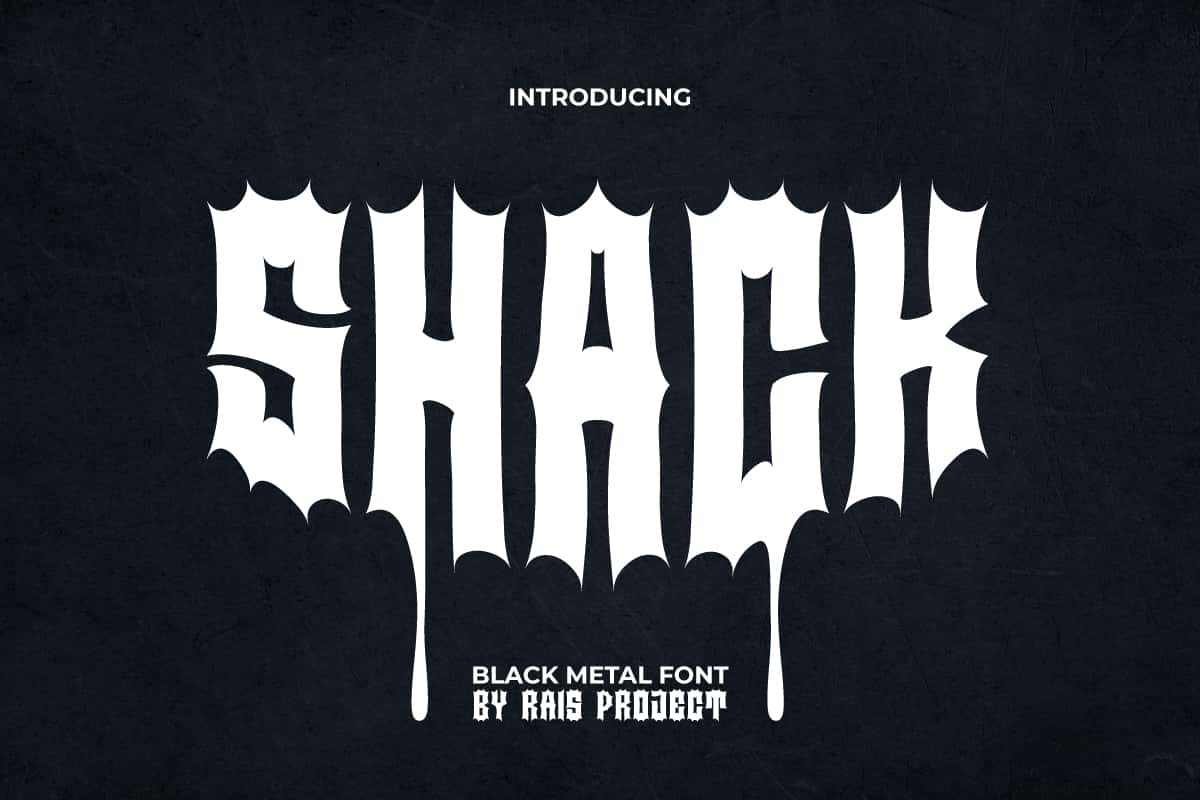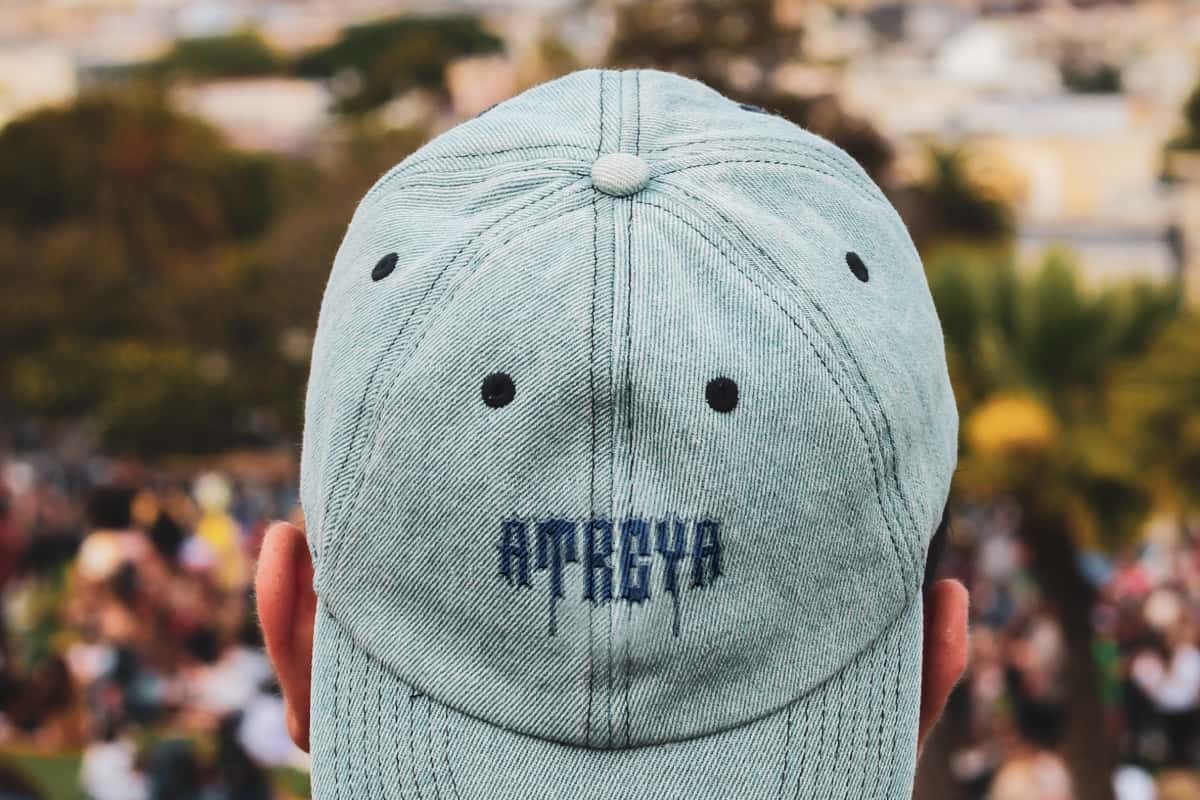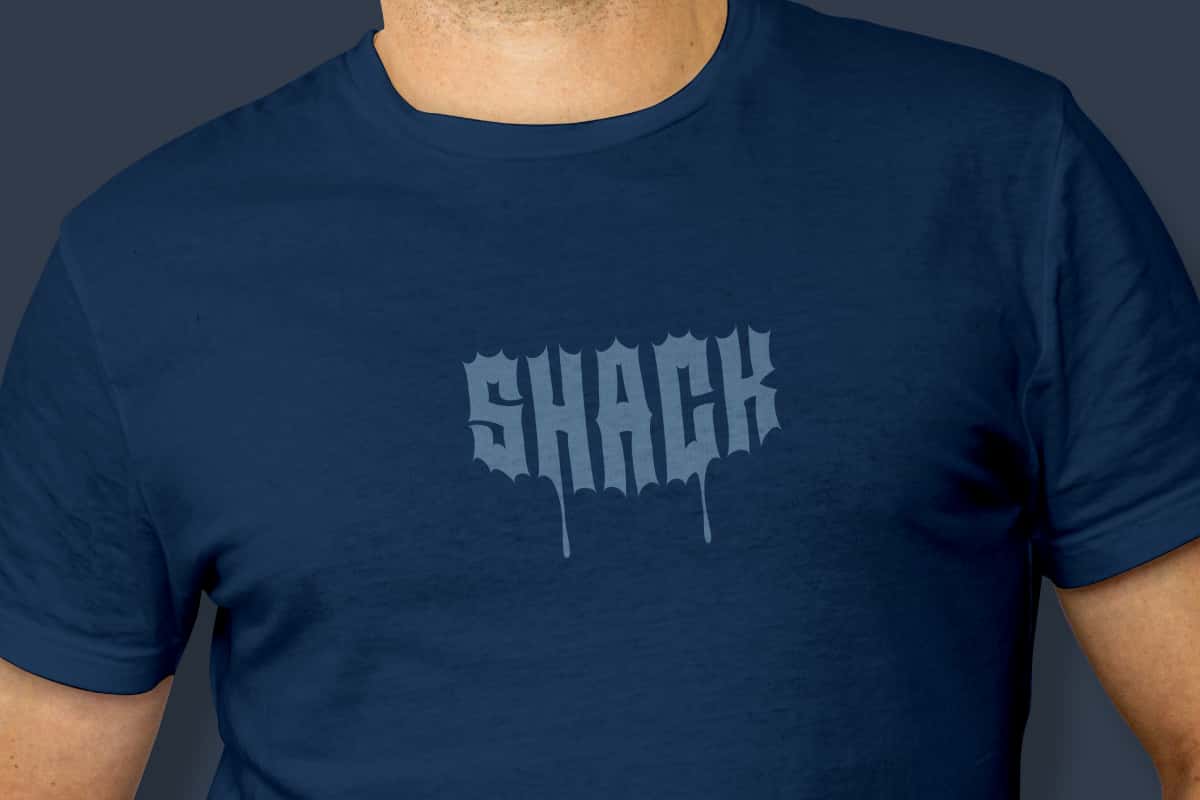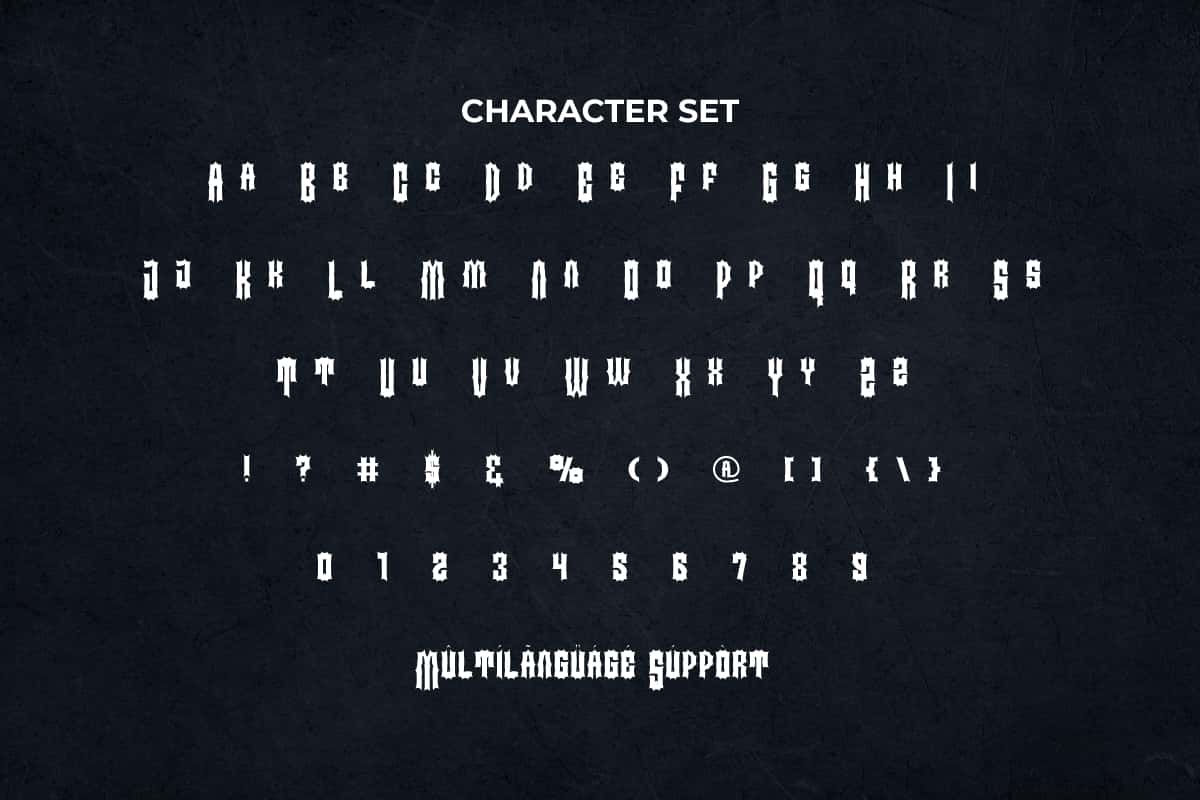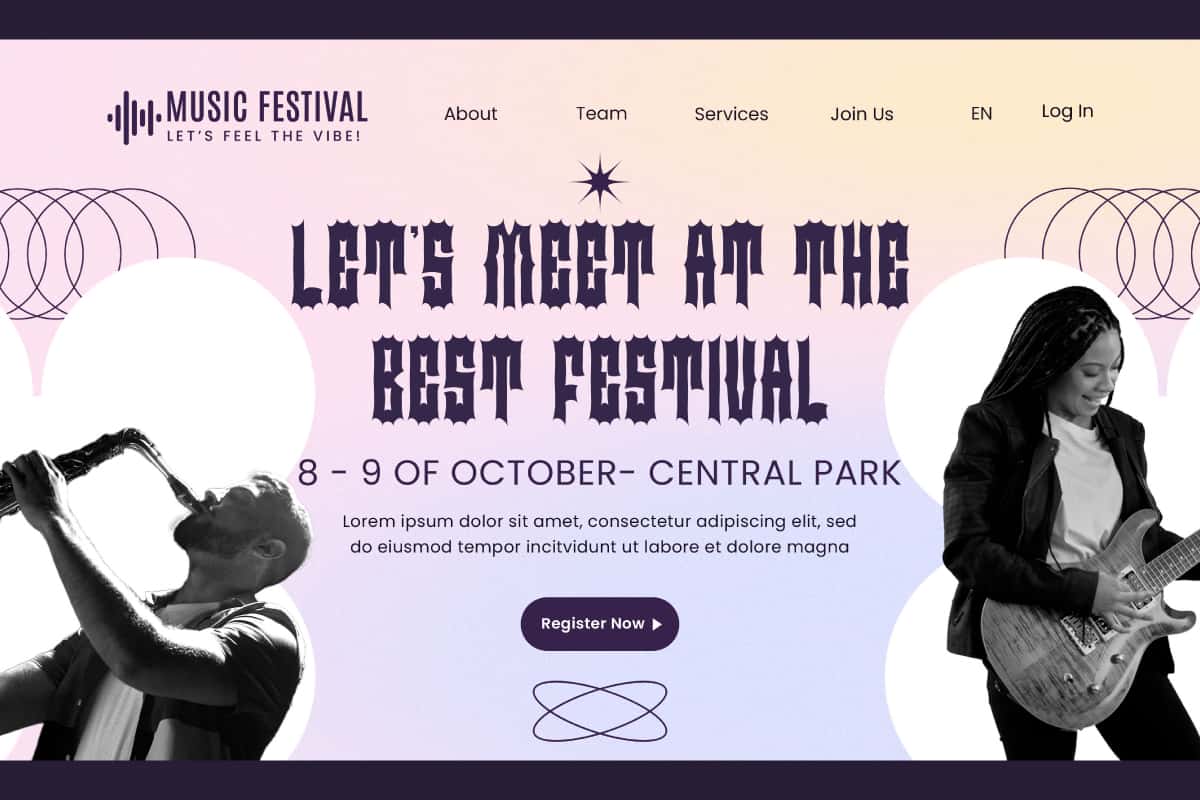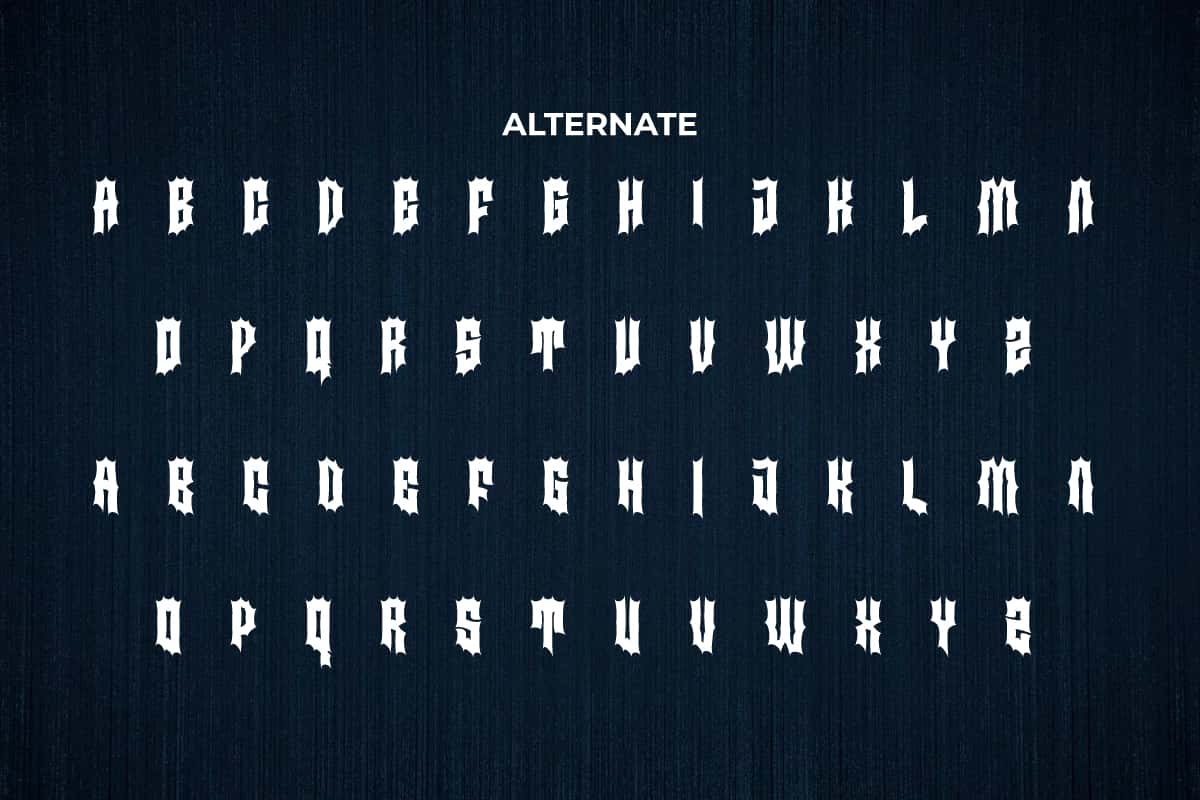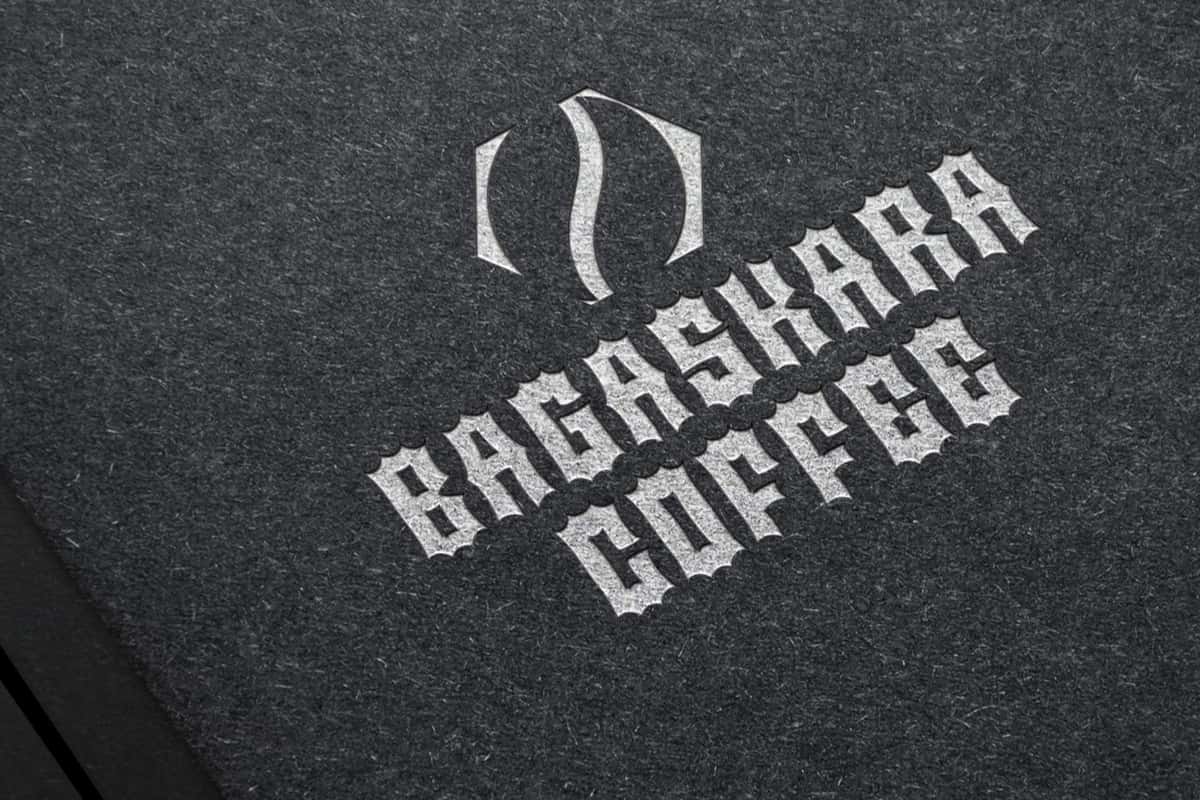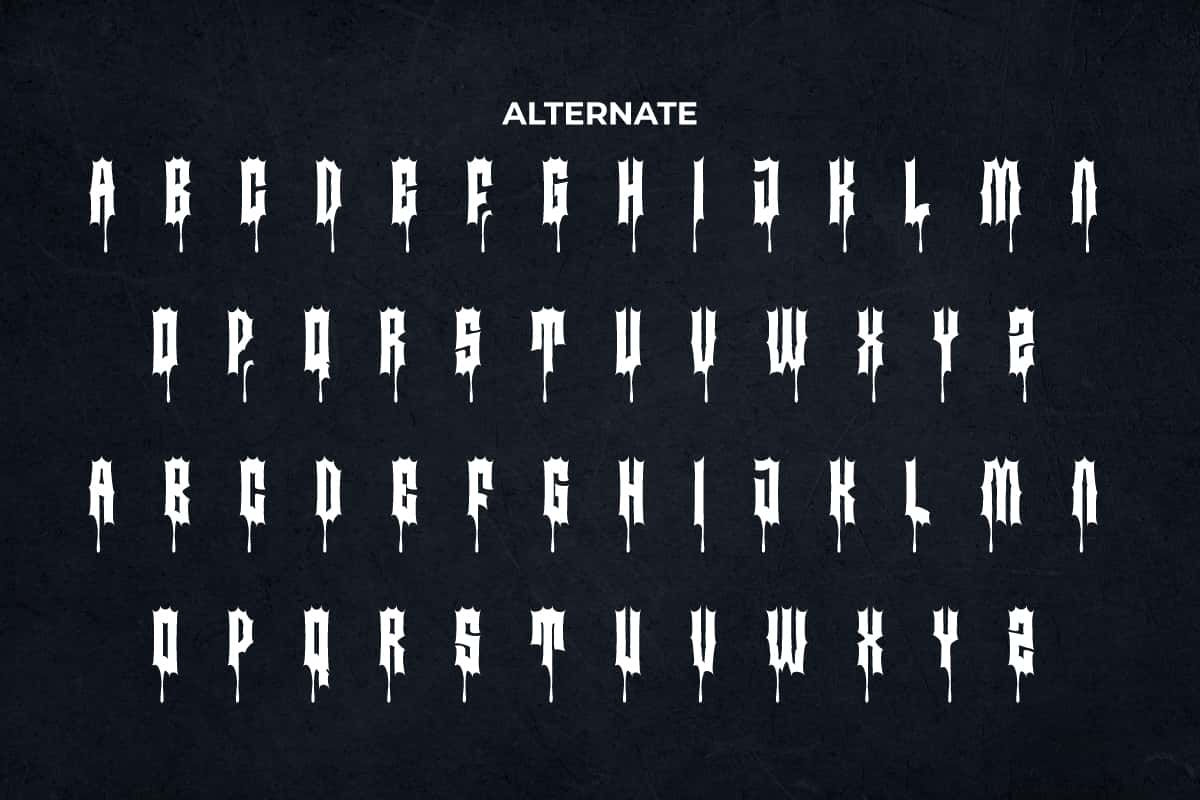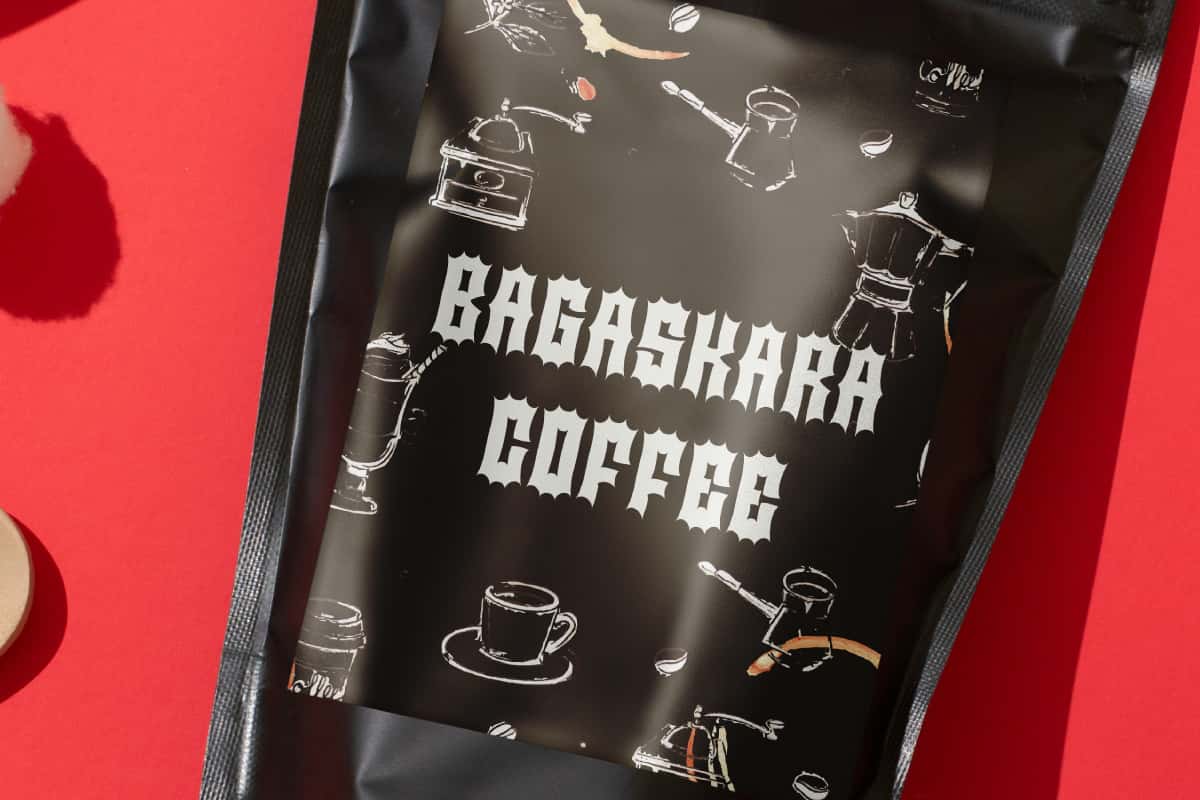
Shack Font is a creepy black metal display font by RaisProject. This font display has prominent characters and has interesting variations such as having paint drops at the bottom of the letters. Try this font now for various designs, such as custom design, poster, invitation, advertisement, website, quotes, and more! You can also enter any word you want so you can see what it looks like: